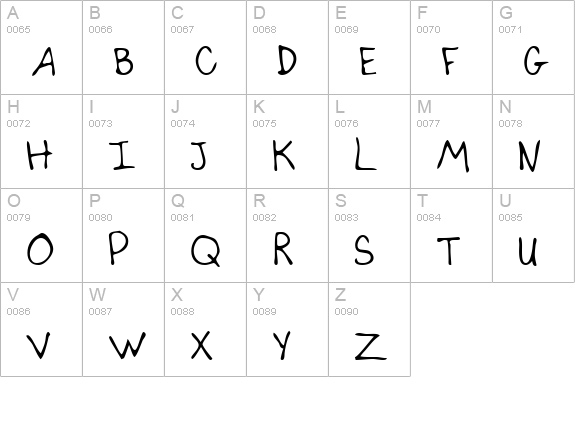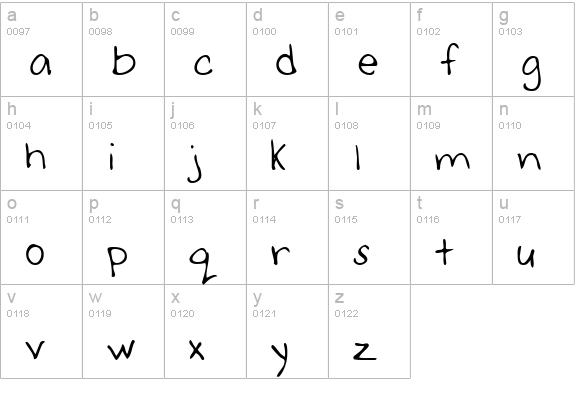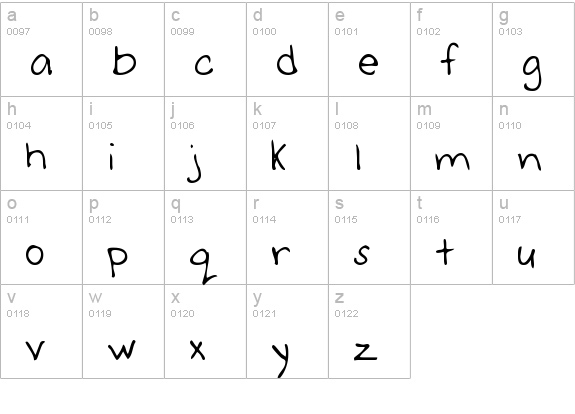
CarlysHand Regular is the standard, neutral variant in the CarlysHand typeface family \xE2\x80\x94 well suited to general body text, paragraphs, and standard typographic work.
CarlysHand Regular font is a charming and versatile typeface that exudes elegance and sophistication. With its graceful curves and smooth lines, this font is perfect for adding a touch of style to any design project. Whether you're creating invitations, posters, or branding materials, CarlysHand Regular is sure to make a lasting impression. What makes CarlysHand Regular even more appealing is that it is available for free download at FontsMarket.com. This means you can easily access this beautiful font and start using it in your projects without any cost. Don't miss out on the opportunity to enhance your designs with the timeless beauty of CarlysHand Regular font - download it for free today!